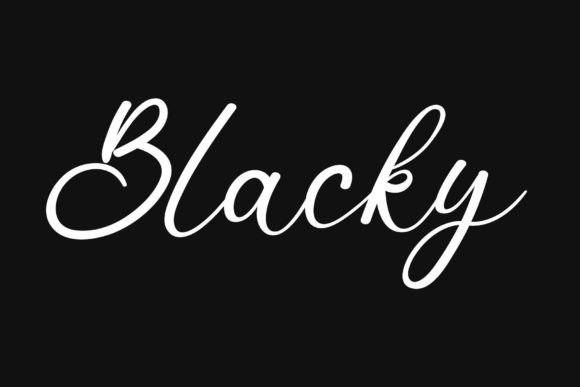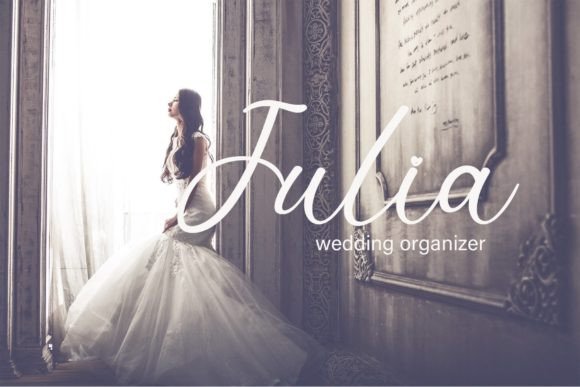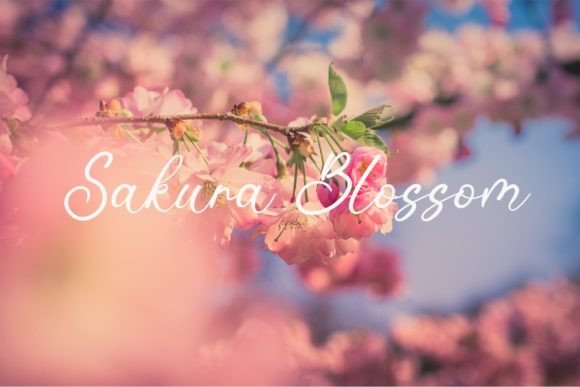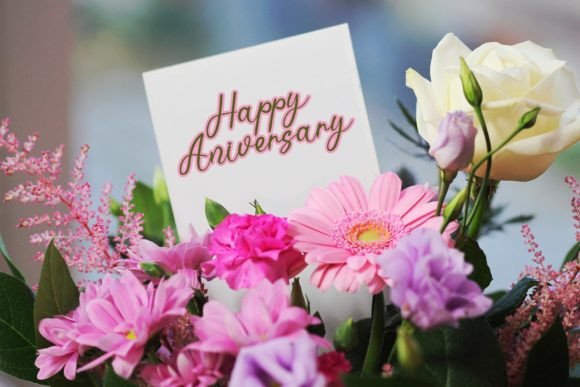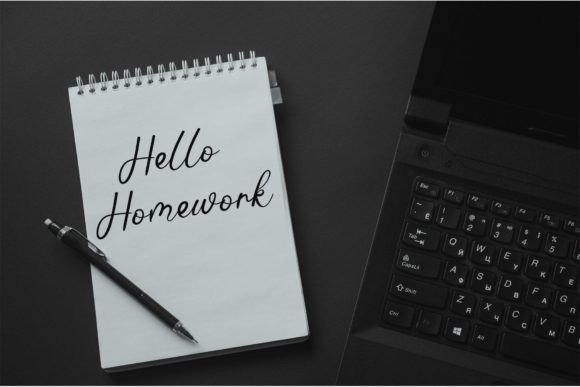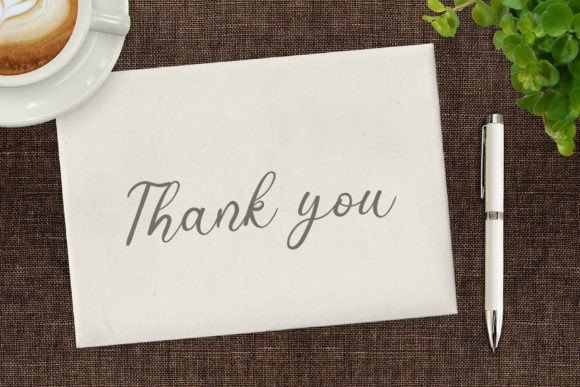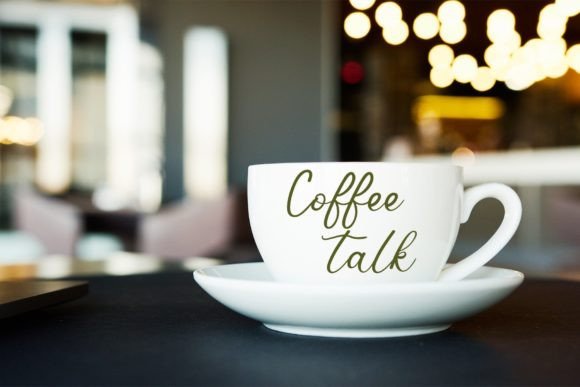
Blacky Font
About Blacky Font
Blacky, a delicate, elegant, and flowing handwritten font, is a beautiful choice that imparts a sense of grace and charm to a variety of design projects. With its well-balanced and exquisite characters, this versatile font is suitable for a wide range of creative endeavors. Adding Blacky to your most imaginative ideas will bring them to life with a touch of sophistication.
The delicate and flowing nature of Blacky makes it well-suited for a diverse array of designs. Whether you’re working on invitations, greeting cards, branding materials, business cards, quotes, posters, or any creative project, this font’s elegant characters contribute to a refined and visually appealing aesthetic.
The well-balanced characters of Blacky ensure that it maintains a harmonious and graceful appearance across different design applications. Its versatility allows it to seamlessly integrate into various projects, enhancing the overall visual appeal and conveying a sense of elegance.
Incorporate Blacky into your creative endeavors, and observe how it elevates the aesthetics of your designs. Whether you’re creating print or digital materials, this handwritten font adds a delicate touch that captures attention and creates a lasting impression.
In summary, Blacky is more than just a font; it’s a design tool that brings delicacy and elegance to your projects. Its flowing handwritten style and well-balanced characters make it a versatile choice for a wide range of applications, allowing your creative ideas to flourish with a touch of sophistication.